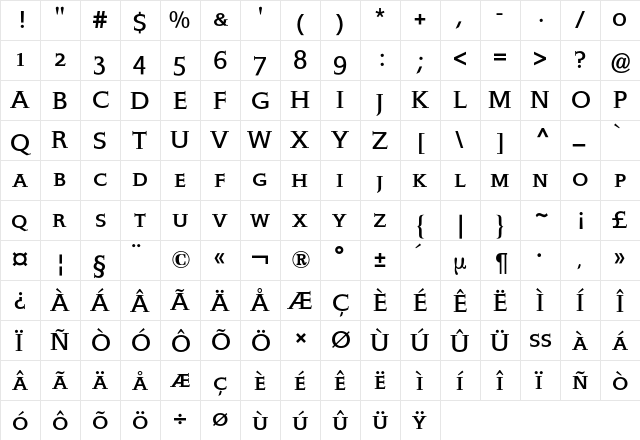
Epikur Expert BQ Regular
Design Context for Epikur Expert BQ Typeface
Epikur Expert BQ offers clean, dependable letterforms without strong stylistic allegiance, making it a practical choice for designers who need flexibility.